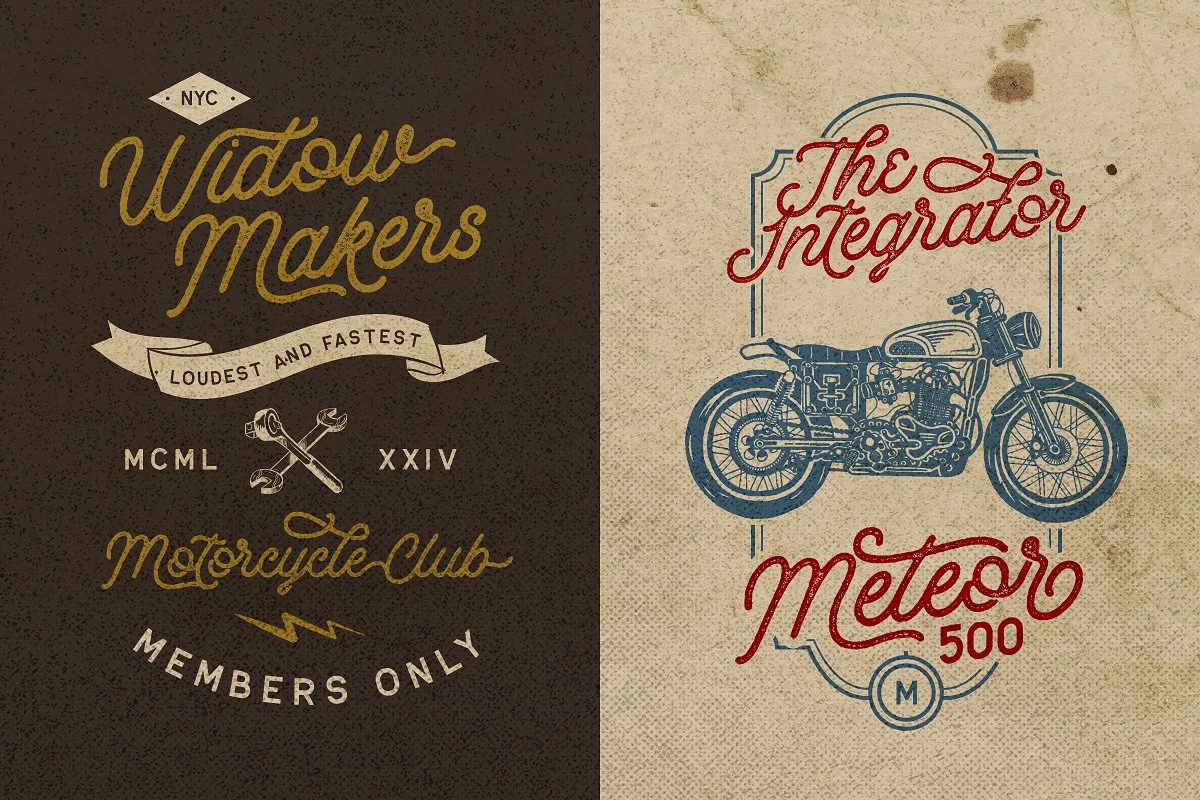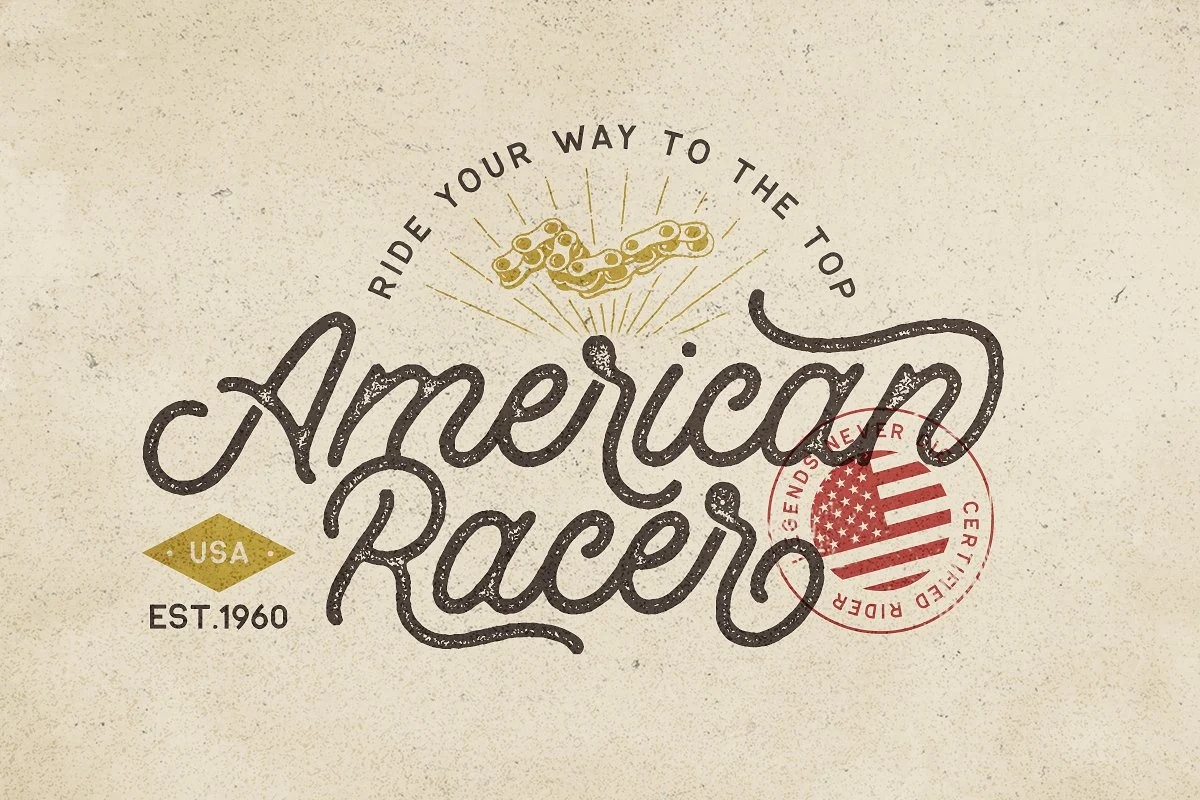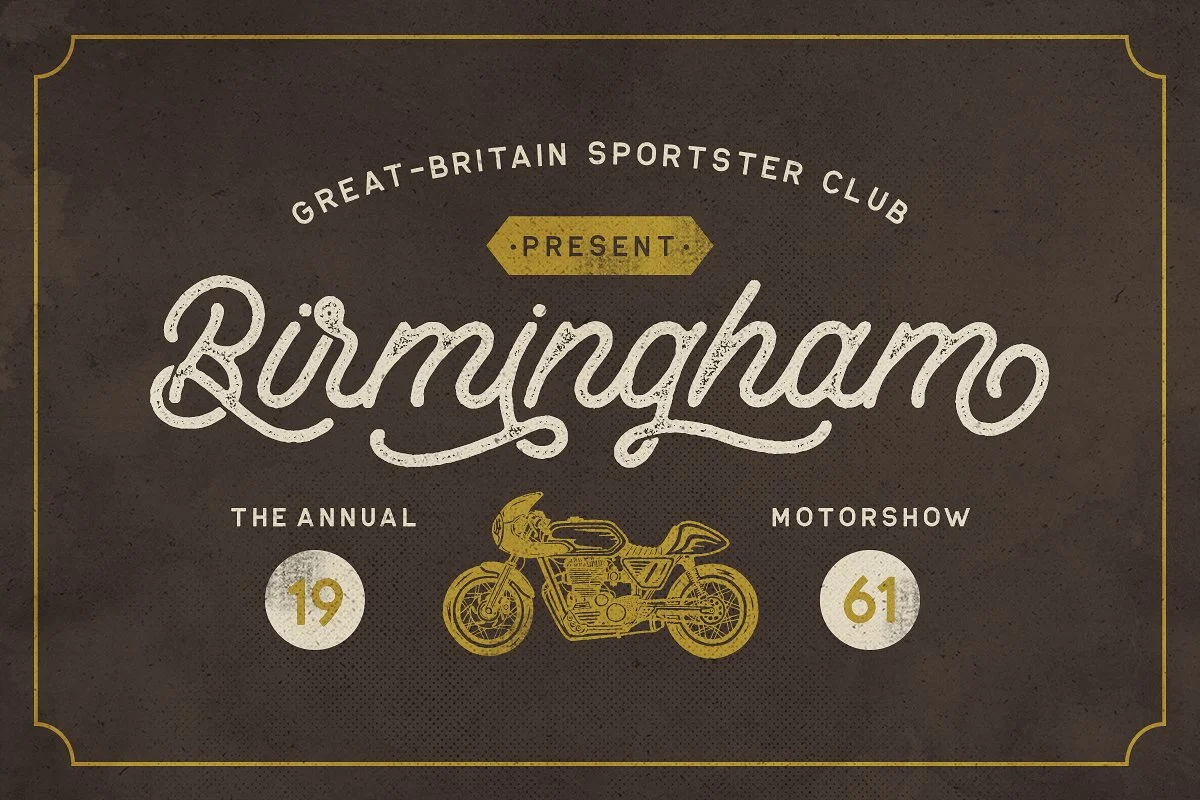
Retrology – a retro monoline script Font
So classic, so retro... it's Retrology! This monoline typeface will bring you to the good ol' days with its classic touch!